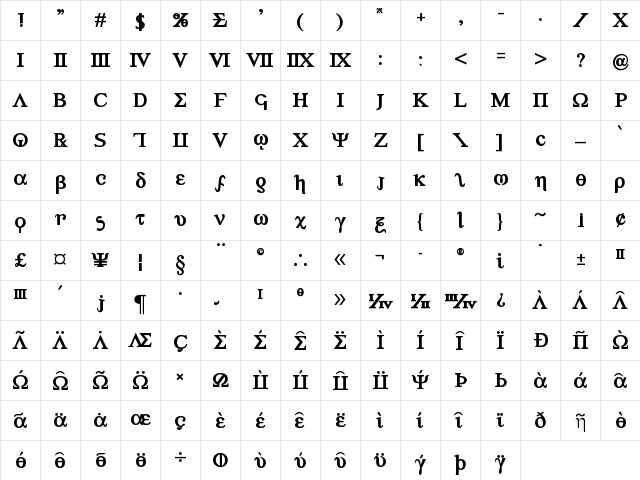
Achilles Bold Bold
Design Context for Achilles Bold Typeface
Achilles Bold offers clean, dependable letterforms without strong stylistic allegiance, making it a practical choice for designers who need flexibility. The heavy weight commands attention and anchors typographic hierarchies.